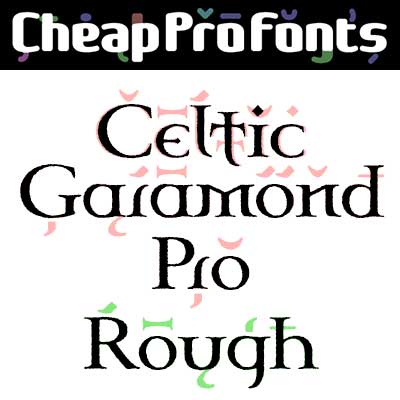
Celtic Garamond Pro Rough
Celtic Garamond Pro Rough by Levente Halmos
A roughened companion for our classic Celtic Garamond Pro: a classical proportioned text font - with a celtic twist! Perfect for that oldstyle look, but still very readable. And now even more antique looking!
Celtic Garamond Pro Rough is a professionally reworked font that contains an extended character set for setting text in 65 languages requiring more than the basic A-Z!